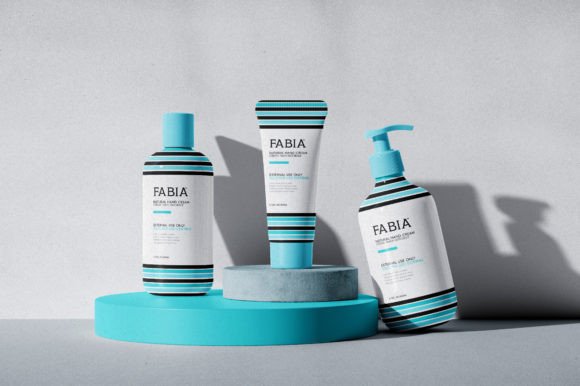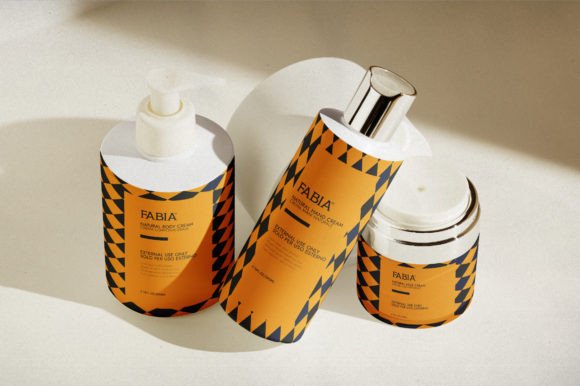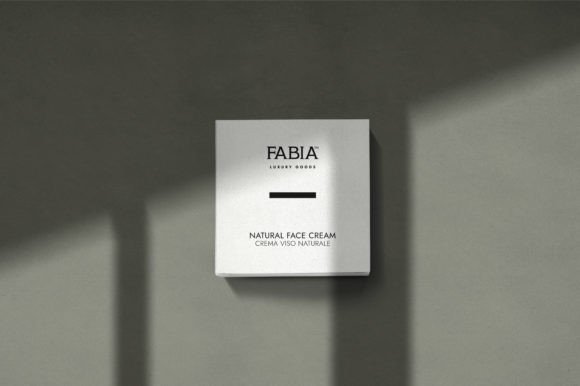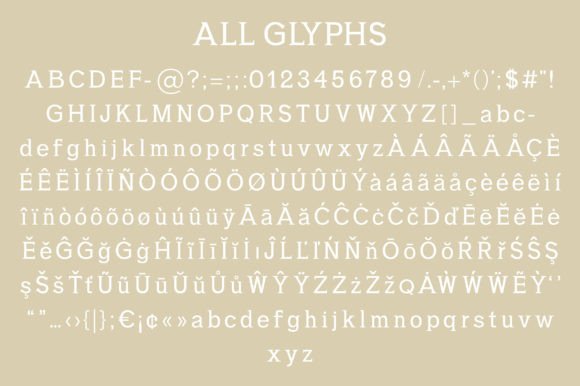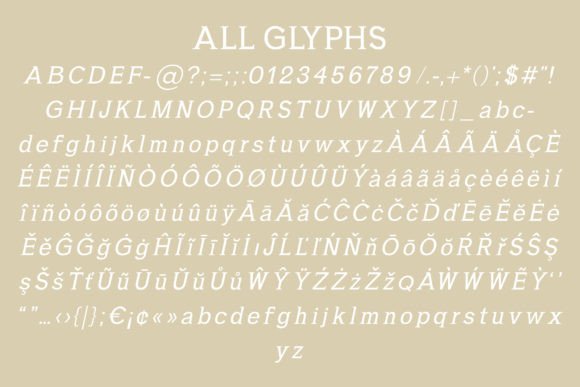
Fabia
Fabia: A Wonderful and Clean Slab Serif Typeface
Fabia is an incredibly wonderful, clean slab serif typeface. Its elegant construction makes it the perfect choice for designs requiring a minimalistic, stylish, and clean look. When you add it to your fonts library, you’ll quickly discover it becoming one of your favorite design choices.
Key Features of Fabia
• Clean Design: Offers crisp, uncluttered letterforms.
• Elegant Construction: Features refined and sophisticated details.
• Minimalistic Style: Brings simplicity to designs.
• Stylish Appeal: Adds contemporary sophistication.
Best Uses for Fabia
Thanks to its clean characteristics, Fabia works especially well for:
When using Fabia in your designs, keep these tips in mind:
• Try it for headlines or display text to showcase its clean style.
• Use different sizes to highlight its elegant construction.
• Let its minimalistic nature enhance modern designs.
• Take advantage of its versatility in stylish layouts.
To sum up, Fabia is an excellent choice for designers seeking a wonderful and clean slab serif typeface. Its elegant construction makes it perfect for projects that need a minimalistic touch. Whether you’re creating modern branding, designing websites, or developing marketing materials, Fabia offers the perfect blend of style and simplicity.
Furthermore, Fabia’s distinctive design allows it to shine in contexts where cleanliness and elegance are key. For instance, from contemporary layouts to professional publications, this font can elevate your projects with its refined style. Also, its clean yet stylish appearance works particularly well in designs that aim to make a sophisticated impact.
In conclusion, Fabia truly captures the essence of clean design in slab serif typography. Its ability to enhance minimalistic projects shows how well it can serve modern creative needs. Therefore, for those wanting to add a touch of elegant simplicity to their work, Fabia can enhance any design with its unique style. Ultimately, it’s perfect for designers aiming to make a clean, stylish impact across contemporary projects.